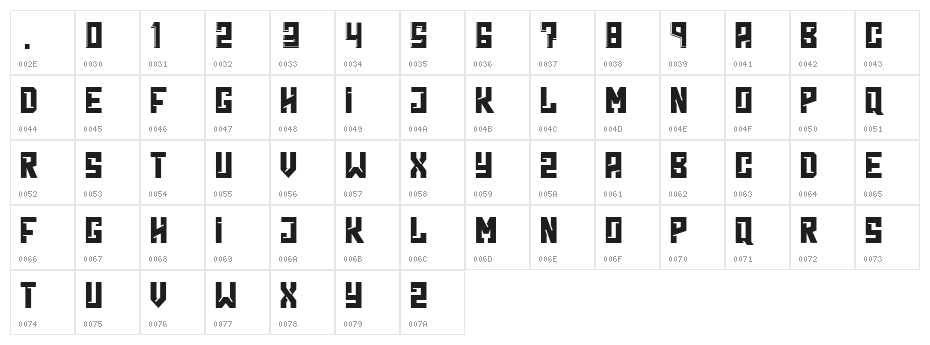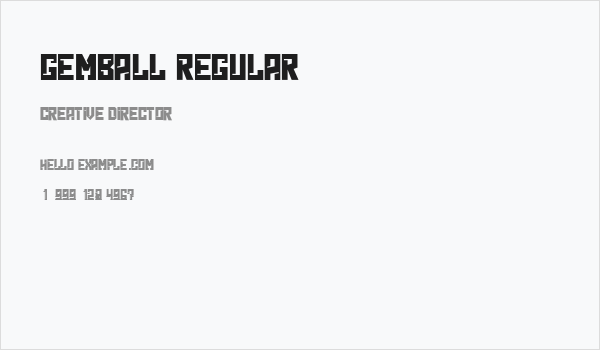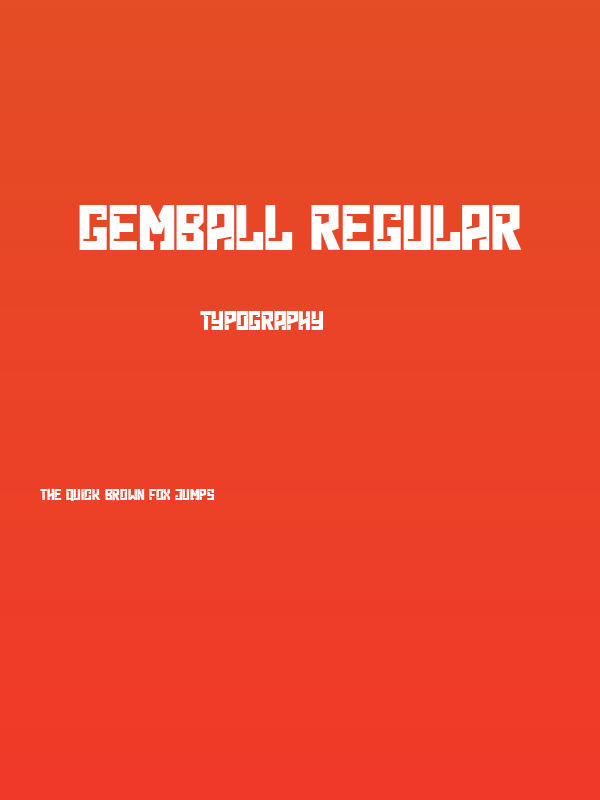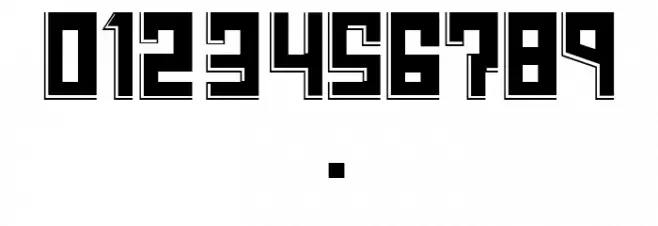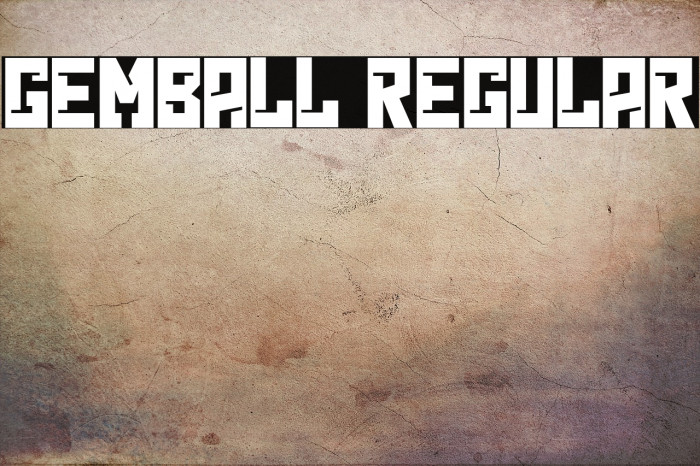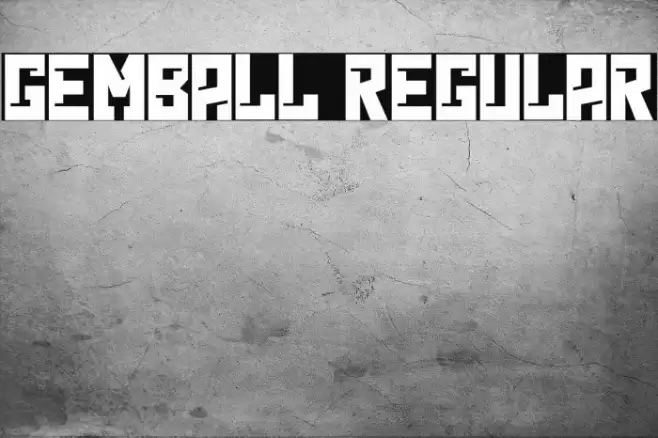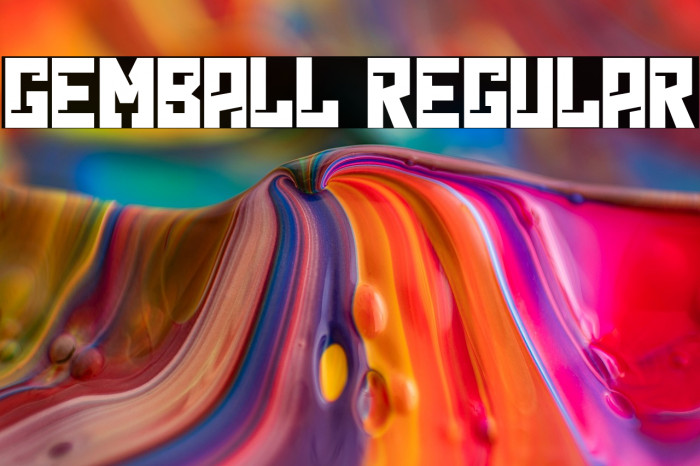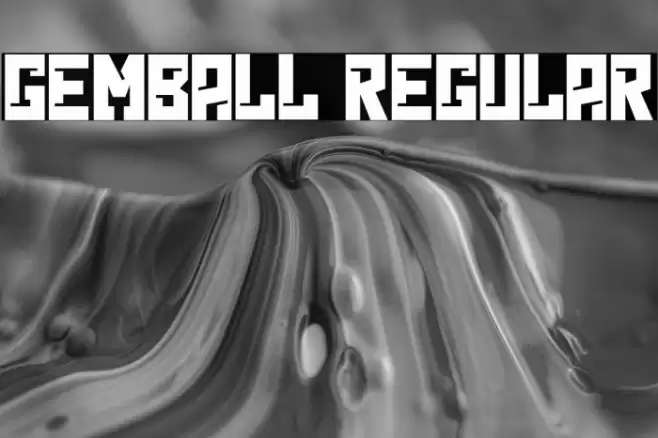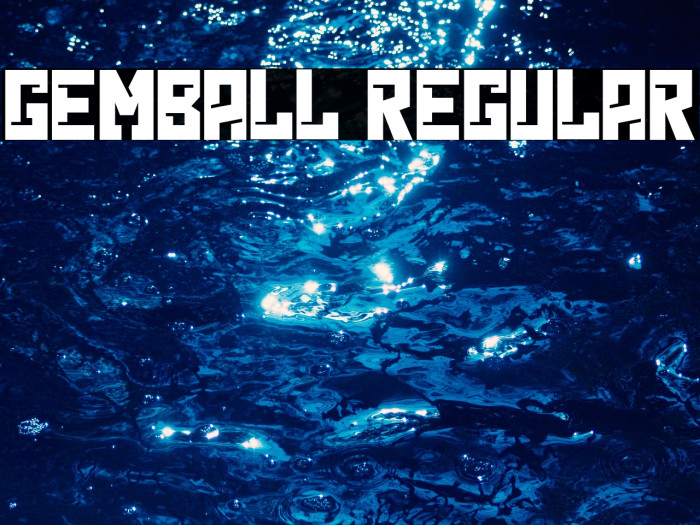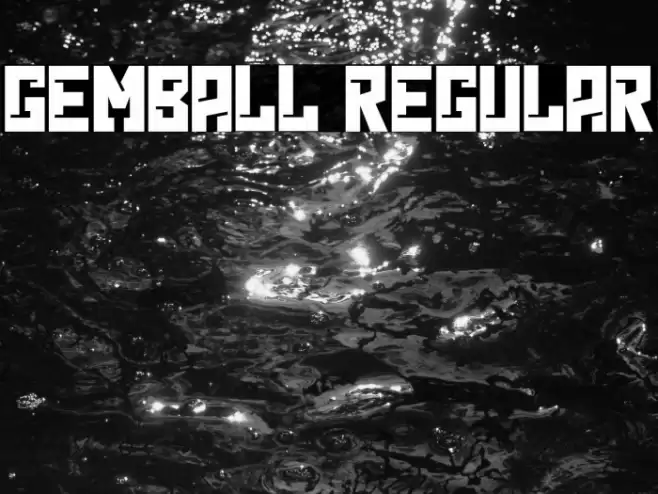
GEMBALL Regular Font
✎ Futuristic
| حالة الاستخدام | Logos, Headlines, Posters |
| مشاريع مقترحة | Ideal for branding, posters, video game graphics, and any project needing a modern, impactful typeface. |